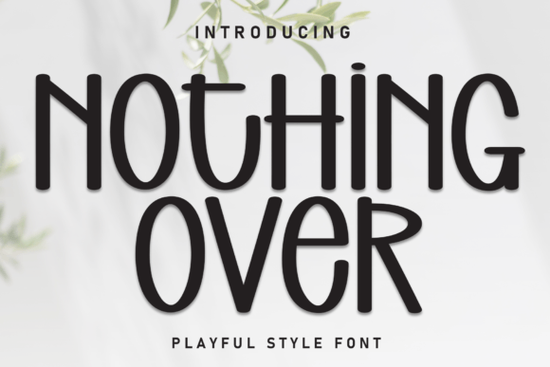
If you browse script fonts looking for something that feels genuinely warm and personal, Nothing over Font Font stands out immediately. It is a handwritten display typeface with a friendly, slightly playful character that works well when you want your text to feel approachable rather than formal. The letters have a natural, hand-drawn quality that avoids looking too perfect or mechanical, which is exactly what many designers look for when they want to add a human touch to their work.
What kind of projects actually benefit from a font like this?
Handwritten display fonts shine when you need short, impactful text that carries emotion. Nothing over Font Font is particularly suited for projects that call for sweetness and charm without feeling childish. Think about elegant wedding invitations where the couple wants a relaxed, intimate atmosphere rather than a stiff, formal calligraphy look. The font adds a sense of personal care to each word, as if someone sat down and wrote each letter by hand just for the occasion.
Artistic greeting cards also benefit from this style. Whether you are designing for birthdays, thank-you notes, or just-because messages, the friendly character of this typeface helps the sentiment feel genuine. Stationery designers often turn to fonts like this when they want recipients to feel a connection before they even read the message.
Other projects where this font works naturally include:
- Branding for small businesses like bakeries, florists, or children's boutiques that want a soft, welcoming identity
- Social media graphics where you need a headline that catches the eye without feeling pushy
- Product labels for handmade goods, candles, or skincare products that emphasize natural ingredients
- Blog headers and quote cards that need a dash of personality
How does this font compare to other script fonts I might already own?
If you already have a collection of script fonts, you might wonder what makes Nothing over Font Font different. Many script fonts fall into two categories: very formal calligraphy styles or casual handwriting that can look messy. This font sits right in the middle. It has the polish of a well-crafted display font but retains the whimsical imperfections that make handwriting feel authentic.
Each of these fonts serves a different purpose, and Nothing over Font Font fills the gap for projects that need approachable charm without losing design quality.
- Wedding and event stationery sold as digital templates or printed invitations
- Custom mugs and apparel with short, meaningful quotes or phrases
- Wall art prints that rely on typography as the main visual element
- Card sets for various occasions where the font carries the emotional tone
The key advantage of this font for commercial use is that it remains readable even at smaller sizes, which is not always the case with highly decorative handwritten fonts. You can use it on product mockups and feel confident that the text will look clean and intentional.
Checklist for using Nothing over Font Font effectively:
- Pair it with a simple sans serif for body text to keep designs balanced
- Use it for headlines only since display fonts work best in short bursts
- Test it on different backgrounds to ensure the lighter strokes remain visible
- Adjust letter spacing for longer phrases to maintain readability
- Combine it with subtle illustrations like floral elements or line art for a cohesive look
If you are working on a project that needs a friendly, handwritten feel with professional polish, this font is worth trying. It delivers exactly what the description promises: a Nothing over Font Font adds a playful zest to your designs without sacrificing elegance.